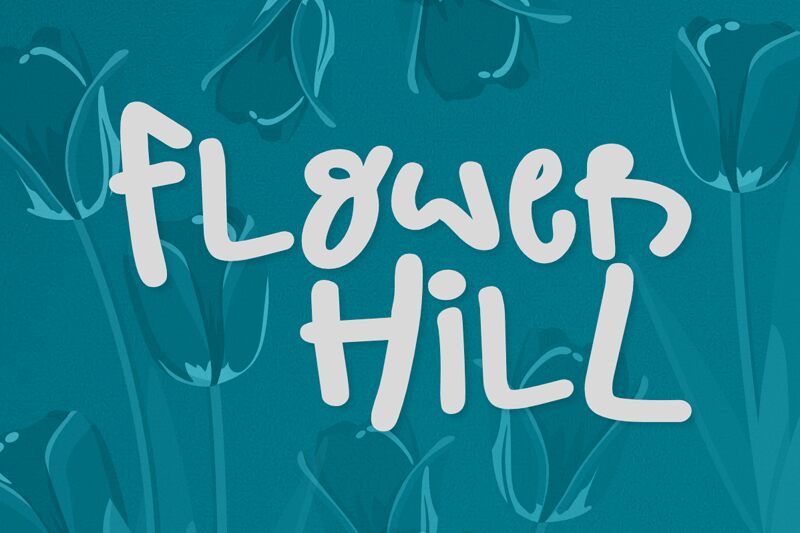
Flower Hill font, designed by olivetype, is a casual font with an inviting informal style, packed with loads of personality. It has a modern handwriting/hand-lettered style with natural imperfections amongst its smooth curves. The font is approachable, youthful, and expressive, just like we were writing with our hands. In its natural and relaxed look, the font brings a friendly experience for the viewers.
Flower Hill can be used for intimate and personal communication where a less formal tone is required. Occasion invitations, wedding stationery, diary, journals, fashion magazines, and personal blogs are all places where Flower Hill can be put to good use. It can also be paired alongside illustrations on social media content, design company cards, and more.